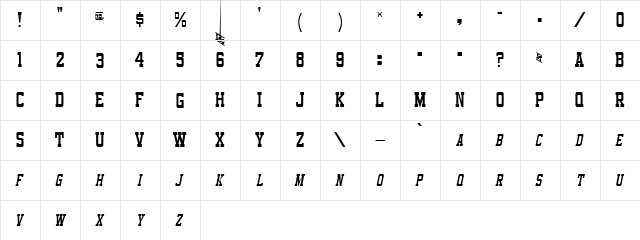
Funland Park Midway JL Regular
Design Context for Funland Park Midway JL Typeface
Funland Park Midway JL trades formality for fun, with bouncy, characterful letterforms that bring warmth and energy to any project.
Great for children's books, toy packaging, family event branding, and casual consumer-facing design.
Font Pairing: Pairs well with a rounded or humanist sans for body copy, maintaining the friendly tone without relying on Funland Park Midway JL to carry extended reading.
Pro Tip: Avoid using Funland Park Midway JL for long passages of text — it works best for headlines, labels, and short calls to action.